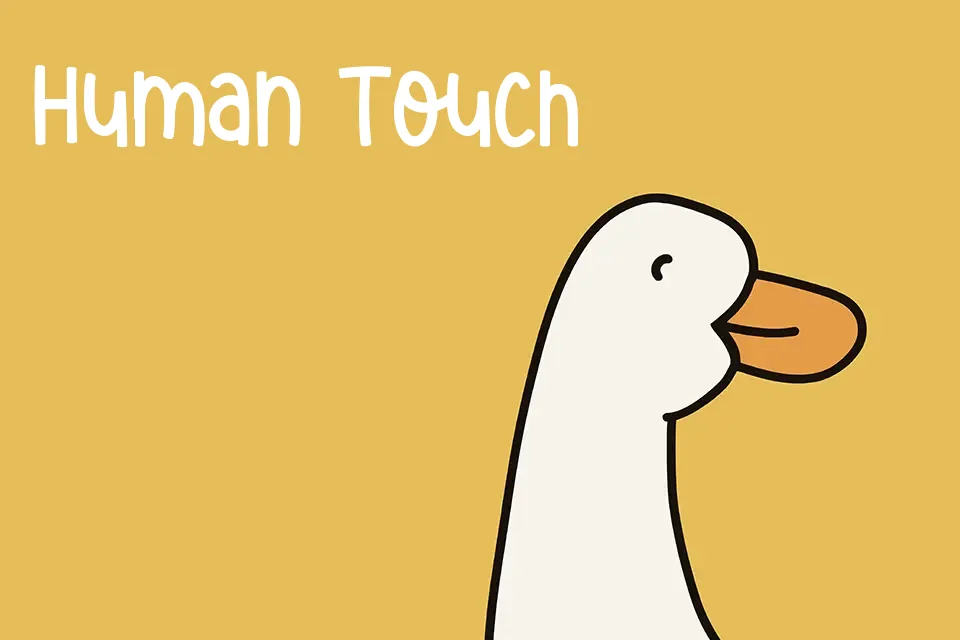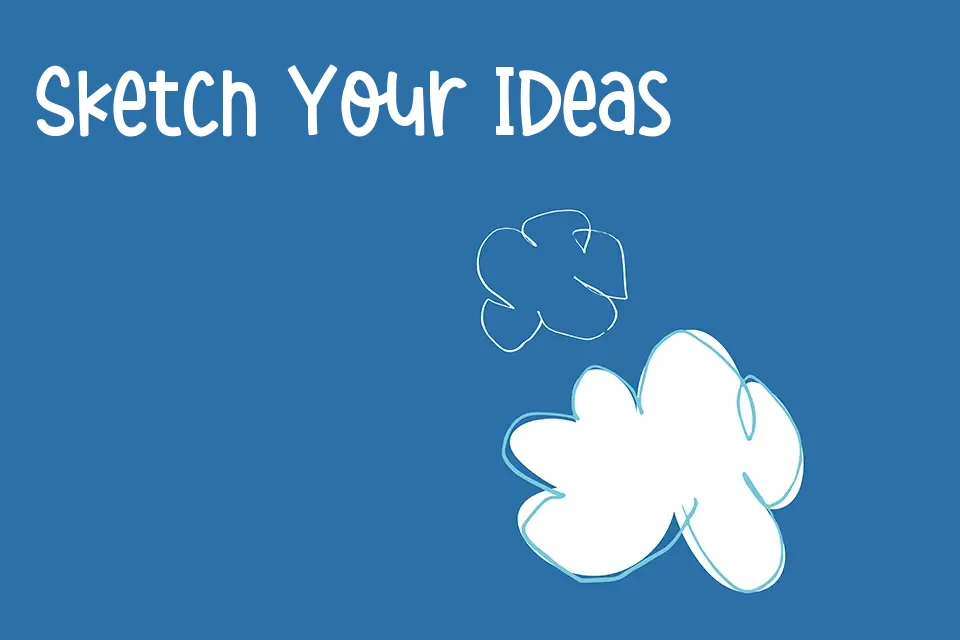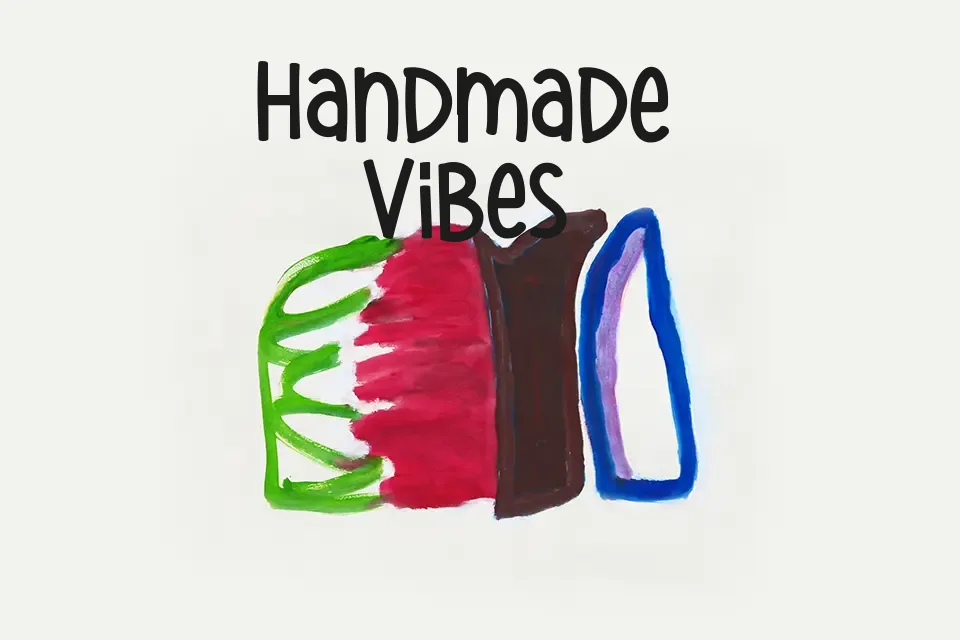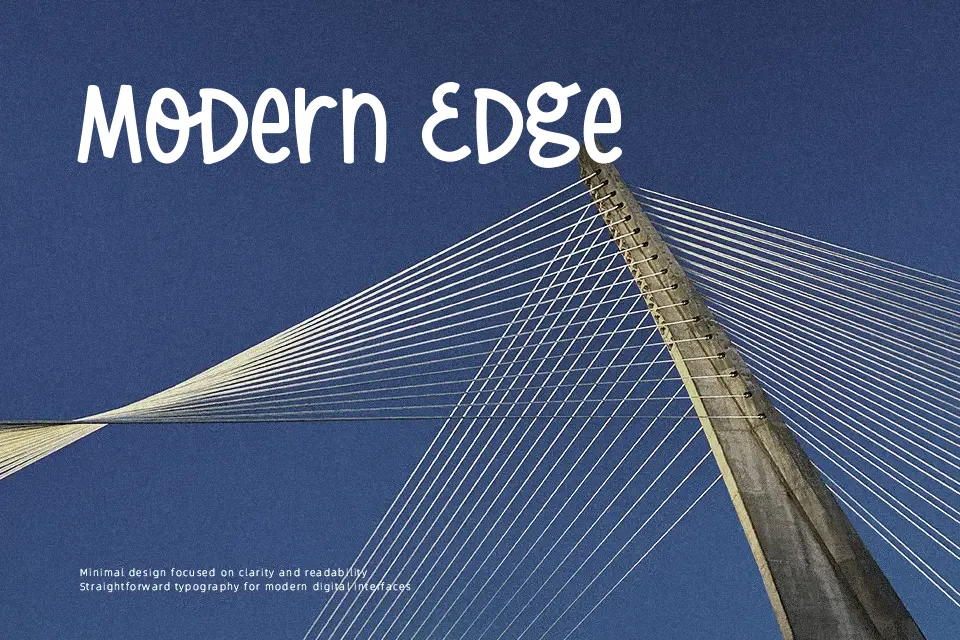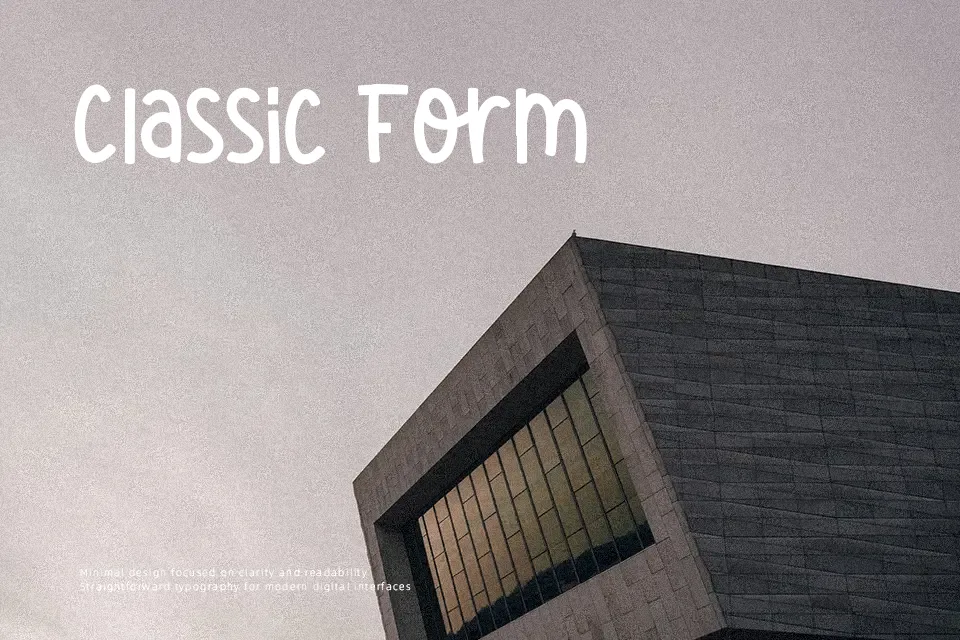
Power Good Font
Power Good Font brings a sense of joy and cheer through its playful handwritten structure and bouncy strokes. The whimsical curves and irregular character baselines create a lively, dynamic visual rhythm that immediately catches the eye. The bold strokes improve visibility in posters, ensuring the letterforms remain legible even from a distance. Because of its highly energetic forms, the spacing helps maintain clarity in larger headlines but becomes less effective at smaller sizes. This typeface performs exceptionally well in comic book covers, festival flyers, and casual branding projects. However, the decorative details reduce continuous reading comfort, making it less suitable for long paragraphs or dense editorial layouts.
Best For: children’s book covers, animated movie posters, casual food packaging, festival banners
Not Ideal For: long paragraph text, corporate reports, dense editorial layouts, small interface labels
Perfect for headline, kids, and packaging, with a dynamic and cartoon style.